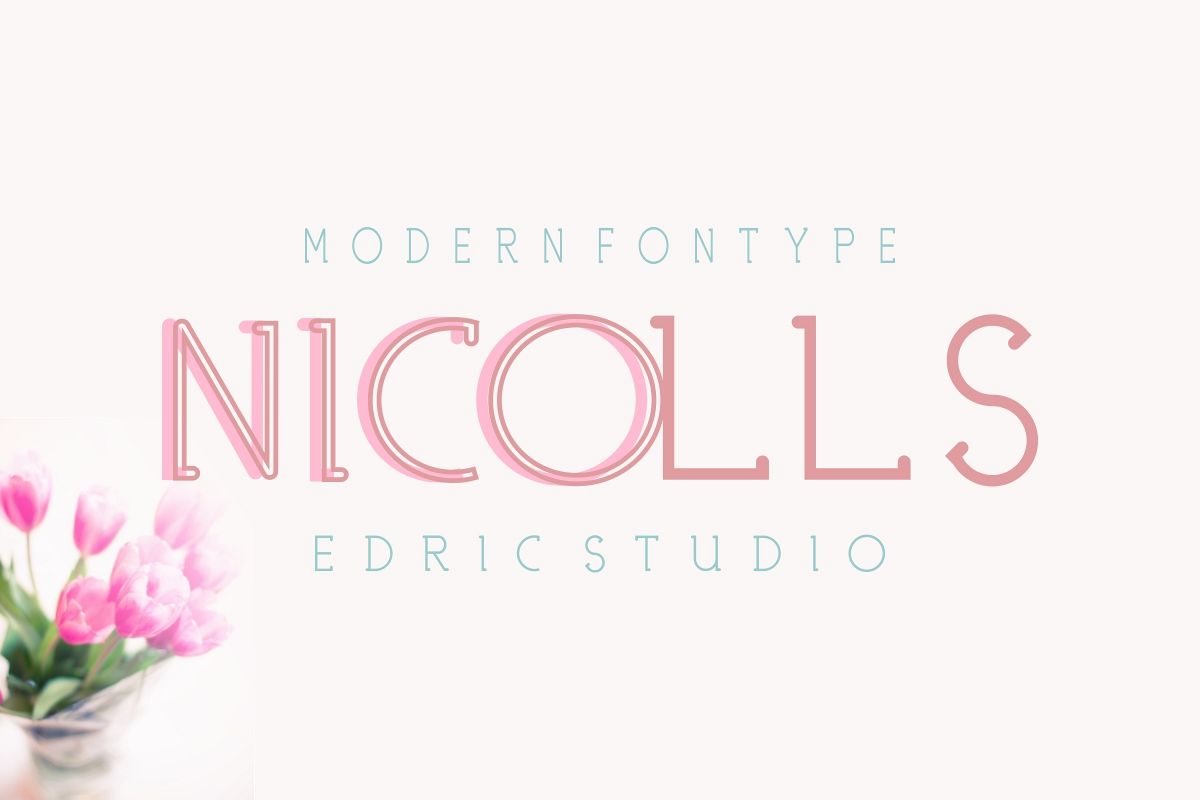
NICOLLS
Please meet our newest font : Nicolls ! This is a new modern sans display with feminine style font. It has a fresh, elegant, unique and stylish glyph.This font will Work on PC & Mac with Simple installations. Accessible in the Adobe Illustrator, Adobe Photoshop, Adobe InDesign, even work on Microsoft Word.Purchase with confidence! =)